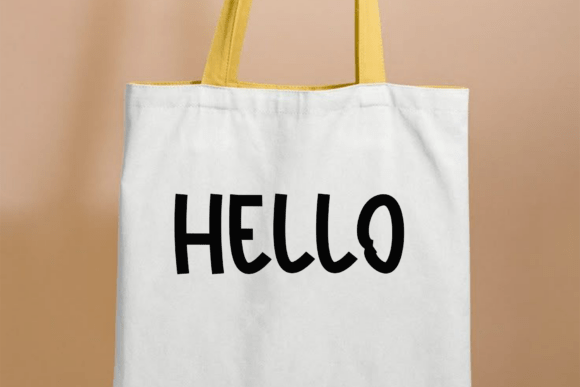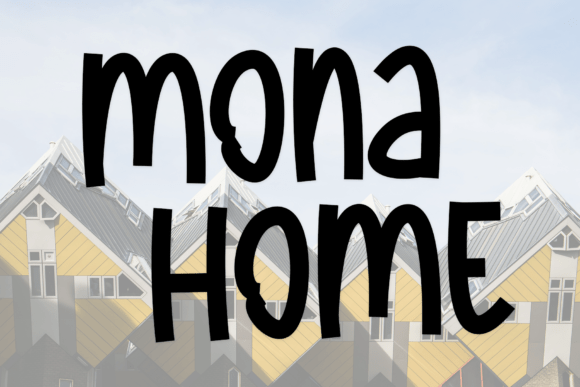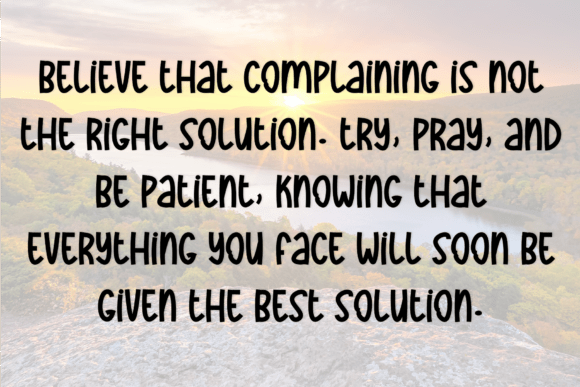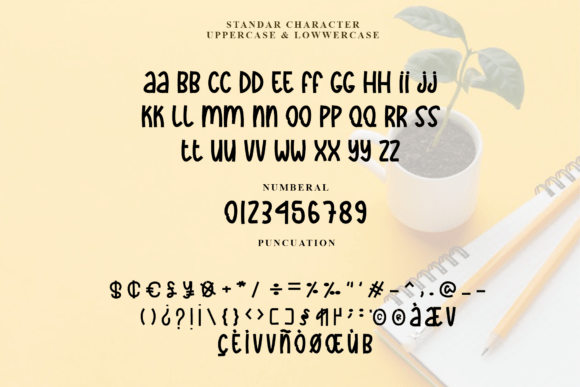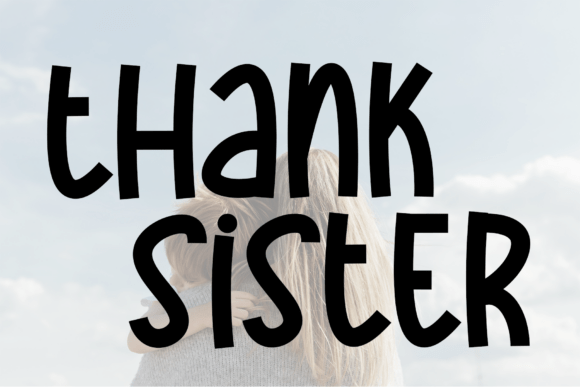
The Greenhouse Font: A Warm and Inviting Addition to Your Design Toolkit
I’ll never forget the time I was working on a branding project for a local artisan bakery. I had spent hours pouring over design concepts, but something was missing. The client’s request was simple: create a logo that felt warm, inviting, and personal. As I scrolled through font after font, I couldn’t shake the feeling that I was stuck in a sea of sameness. That was until I stumbled upon the Greenhouse font.
Greenhouse is a casual display font that radiates warmth and personality. Featuring smooth strokes, natural curves, and easy-flowing letterforms, it captures the charm of authentic handwriting with a modern, approachable feel. In this article, we’ll dive into the world of Greenhouse, exploring its unique characteristics, how to use it effectively in your designs, and some similar fonts you might love.
An Honest Review: The Good and the Quirky
What I Love About Greenhouse ✨
- ✅ Effortless style: Greenhouse has a relaxed, conversational feel that’s perfect for quotes, invitations, and social media posts.
- ✅ Readability: Despite its casual nature, Greenhouse is surprisingly readable, even at smaller font sizes.
- ✅ Versatility: This font is perfect for a wide range of design projects, from branding and packaging to digital graphics and print materials.
- ✅ Friendly vibe: Greenhouse adds a personal touch to any design, making it feel approachable and welcoming.
Small Quirks and Limitations 🤔
While Greenhouse is an amazing font, it’s not perfect. Here are a few things to keep in mind:
- ⚠️ Limited formal applications: Greenhouse is a casual font, so it may not be the best choice for more formal or corporate designs.
- ⚠️ Some letter combinations: As with any font, some letter combinations may not look perfect. Be sure to test the font with your specific text to ensure the best results.
The Story Behind Greenhouse
While the true story behind Greenhouse may be unknown, it’s easy to imagine that it was created with the intention of capturing the warmth and personality of handwriting. Perhaps the designer, inspired by the beauty of nature, set out to create a font that would bring a touch of elegance and sophistication to any design. Whatever the inspiration, Greenhouse is a true gem that has captured the hearts of designers and crafters alike.
Q: What is the best way to use Greenhouse in my designs?
A: Greenhouse is a versatile font that can be used in a wide range of designs, from quotes and invitations to branding and social media posts. Experiment with different sizes, colors, and styles to find the perfect fit for your project.
Q: Is Greenhouse a difficult font to read?
A: Despite its casual nature, Greenhouse is surprisingly readable, even at smaller font sizes. However, as with any font, it’s always a good idea to test it with your specific text to ensure the best results.
Q: Can I use Greenhouse with other fonts?
A: Absolutely! Greenhouse pairs well with a wide range of fonts, from serif and sans-serif fonts to other script fonts. Experiment with different combinations to find the perfect fit for your design.